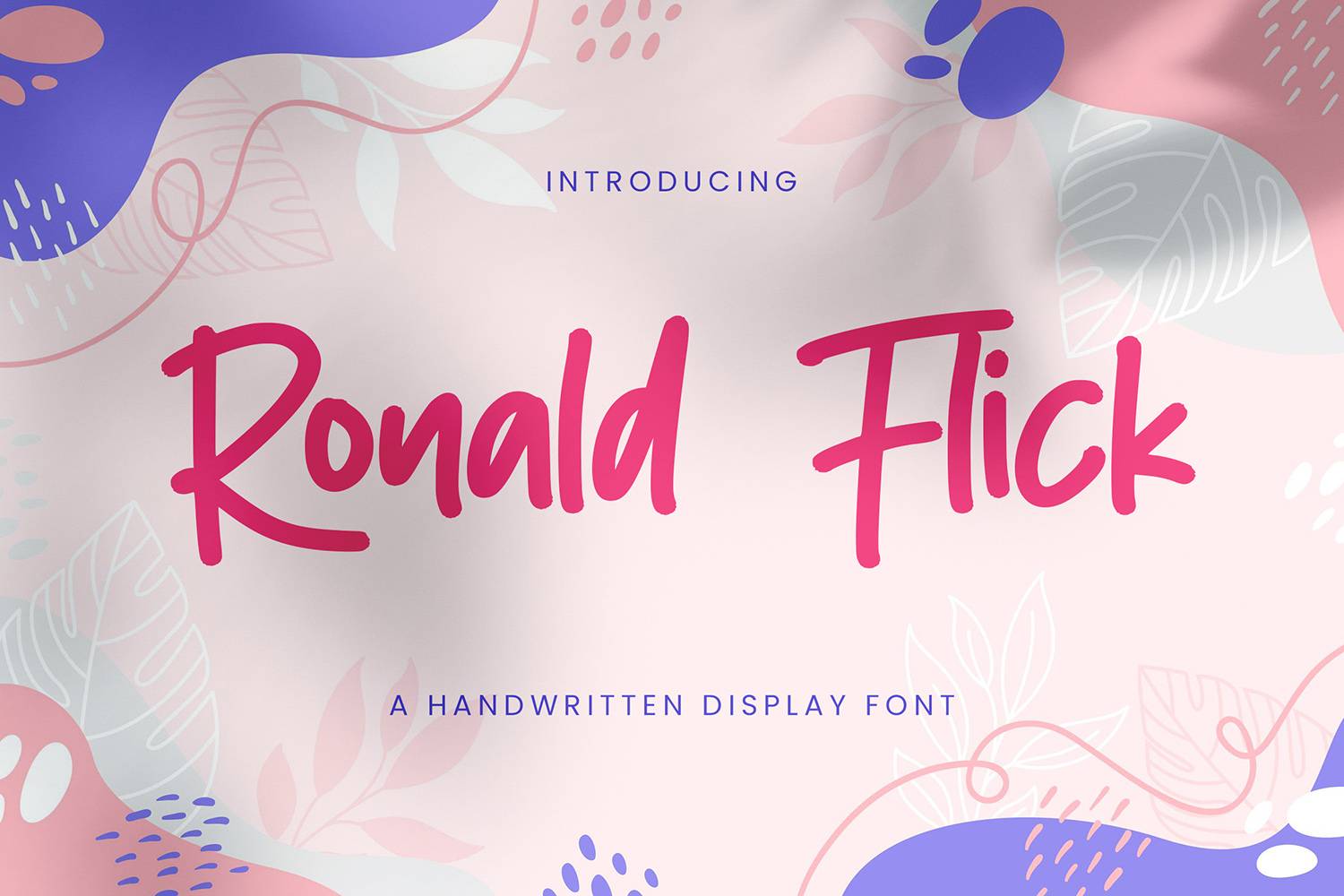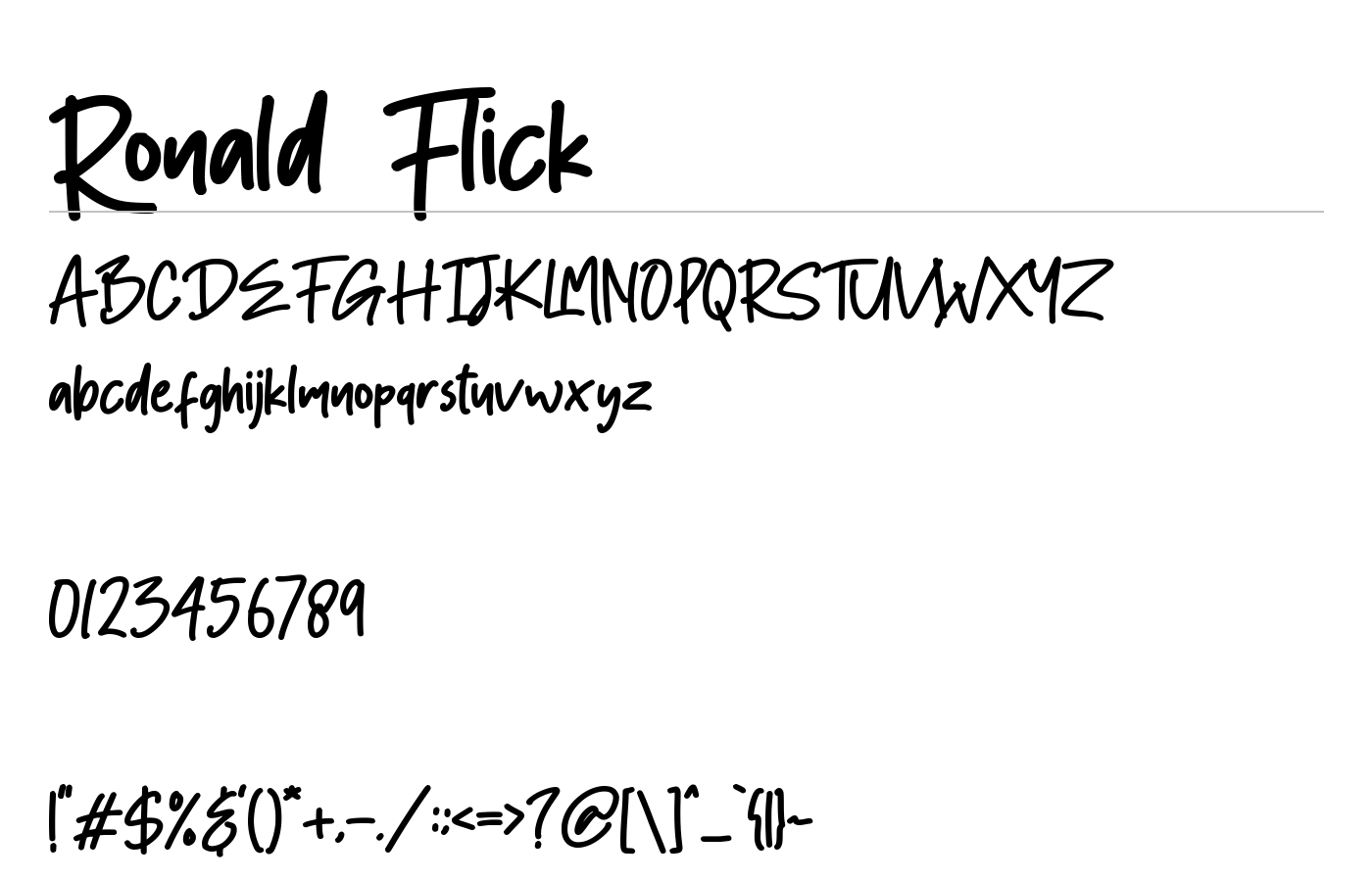
Ronald Flick is a casual, handwritten sans serif font with a lively and energetic feel. Its irregular, slightly slanted letterforms and varied stroke widths give it a playful and approachable personality, making it ideal for informal branding, creative projects, and eye-catching headlines. This font works well where a personal, friendly touch is desired, such as social media graphics, invitations, or youth-focused designs.
Ronald Flick Font